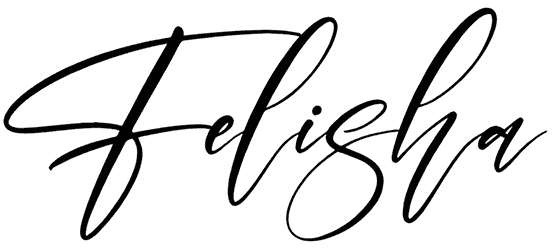
Felisha Font
Felisha is where you can stop searching and focus on your work instead of finding the next letters you want to use. This handwritten font is a very interesting combination of beauty and illegibility that can bring you a modern look of the century.
The lively and dynamic appearance of this wedding font is such that it can look very good on wedding cards, invitations, and love letters, and become one of the options that you return to again and again.